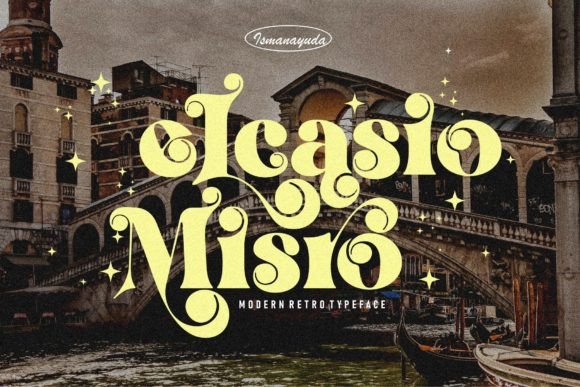
Embark on a typographic journey through time with Elcasio Misro, a vintage serif font that exudes elegance and sophistication. Crafted with meticulous attention to detail, Elcasio Misro captures the essence of classic design, transporting you to an era of timeless beauty. Its ornate curves and intricate details evoke a sense of nostalgia, while its clean lines and refined proportions ensure lasting appeal.
Immerse yourself in the allure of Elcasio Misro's vintage charm, perfect for adding a touch of old-world elegance to your creative endeavors. Whether you're designing logos, branding materials, invitations, or any project that demands a touch of timeless sophistication, Elcasio Misro is your font of choice.
Discover the versatility of Elcasio Misro, a font that seamlessly adapts to a multitude of design styles. Its classic serif structure lends itself effortlessly to vintage-inspired creations, while its contemporary charm shines through in modern and minimalist designs. Let Elcasio Misro elevate your projects with its timeless appeal, captivating audiences with its undeniable beauty.
Unleash your creativity with Elcasio Misro, a font that inspires imagination and invites artistic expression. Its intricate details and flowing curves provide endless opportunities for customization, allowing you to create designs that truly reflect your unique style. Let Elcasio Misro be your muse, guiding you towards typographic masterpieces that leave a lasting impression.
Join the ranks of discerning designers who have embraced Elcasio Misro's timeless allure. Experience the joy of creating designs that transcend time, capturing the hearts and minds of your audience. With Elcasio Misro as your creative companion, you'll embark on a typographic adventure that knows no bounds.